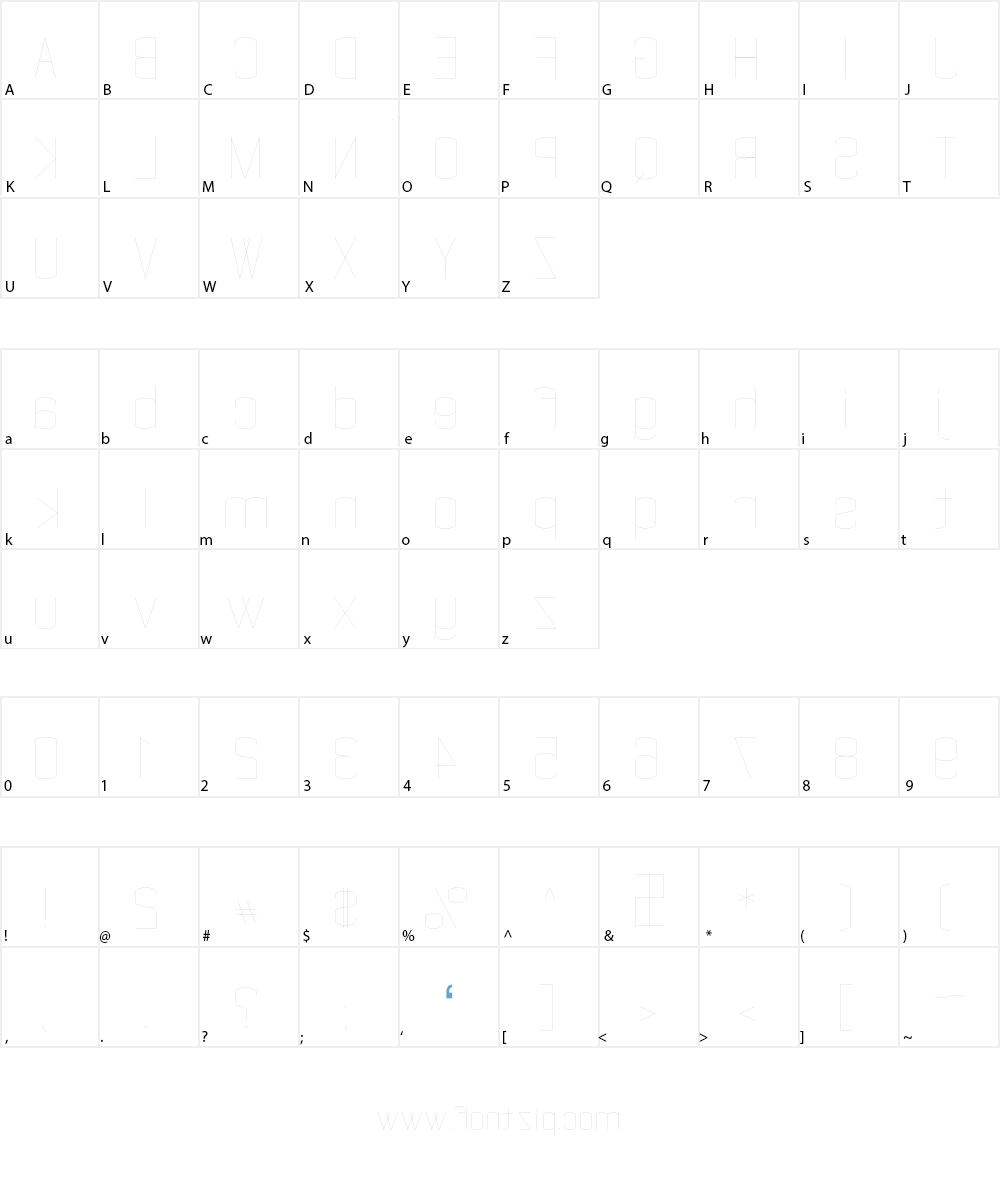
Special font for engraving machine ( CNC). This mirror font is usefull for engraving the back side
of a transparent area. You need to reverse write for operating !